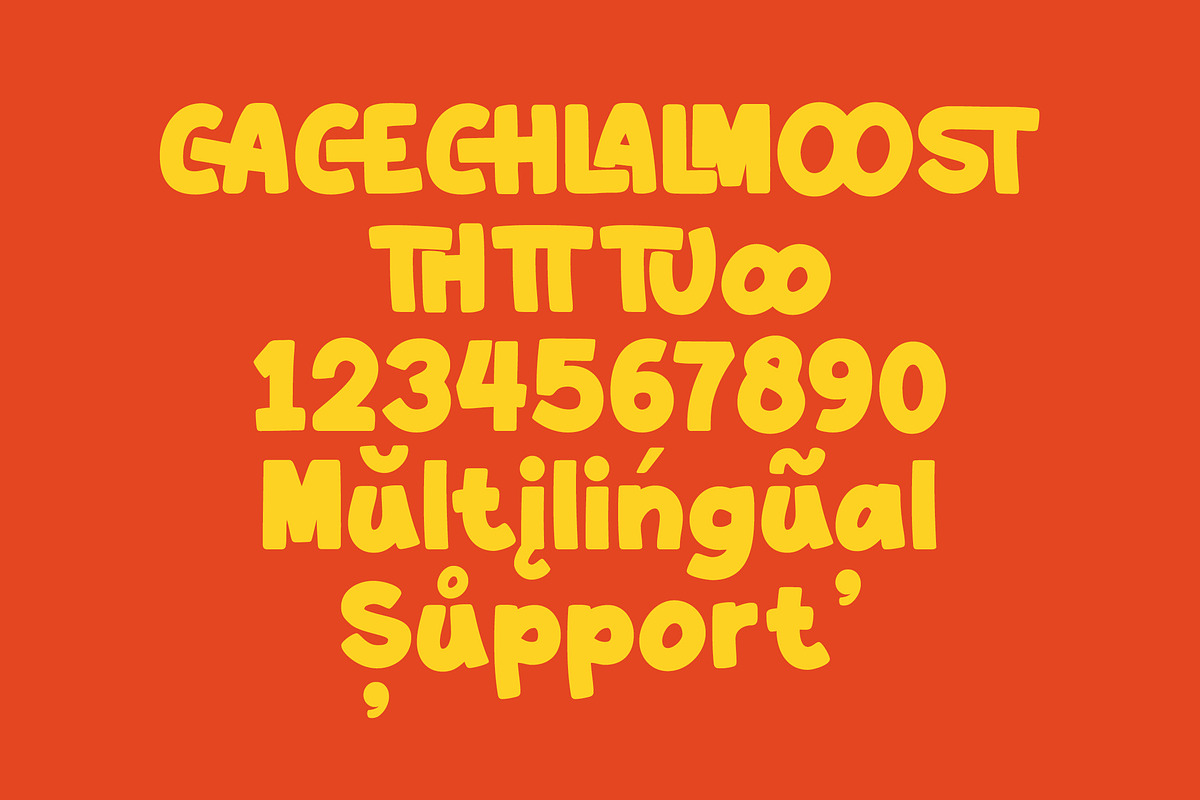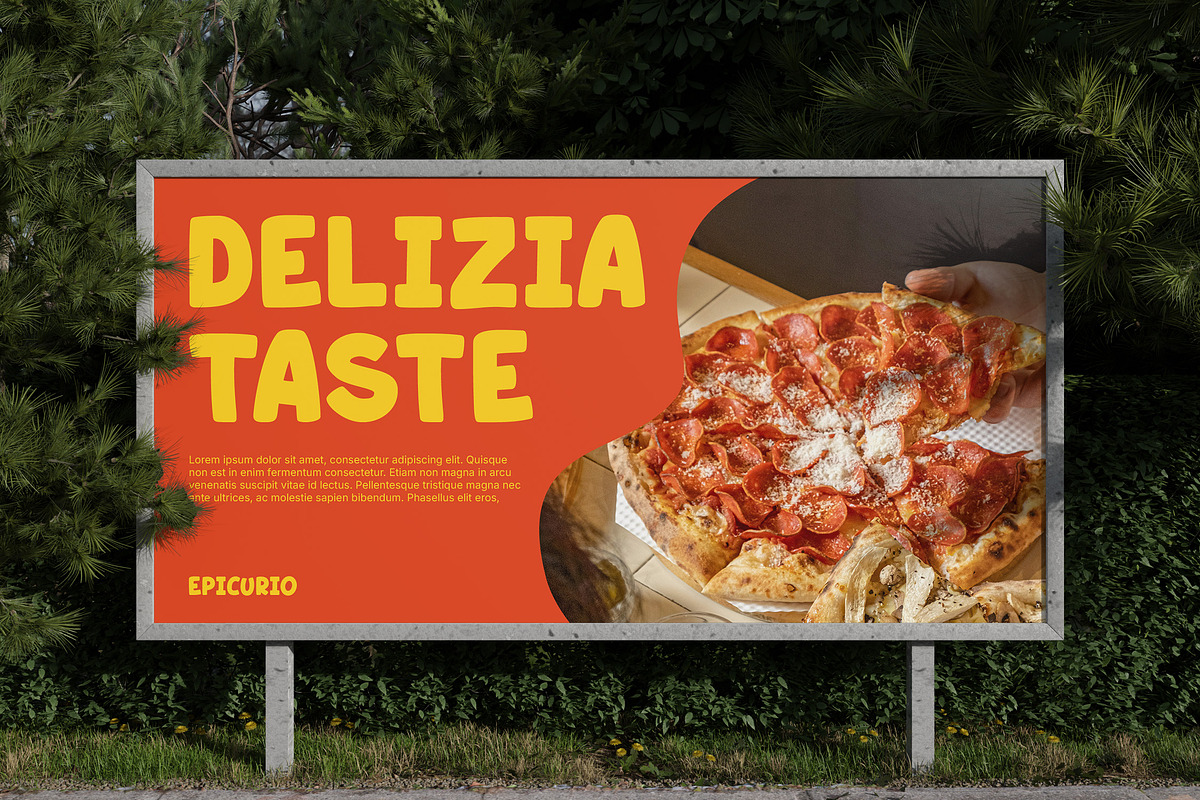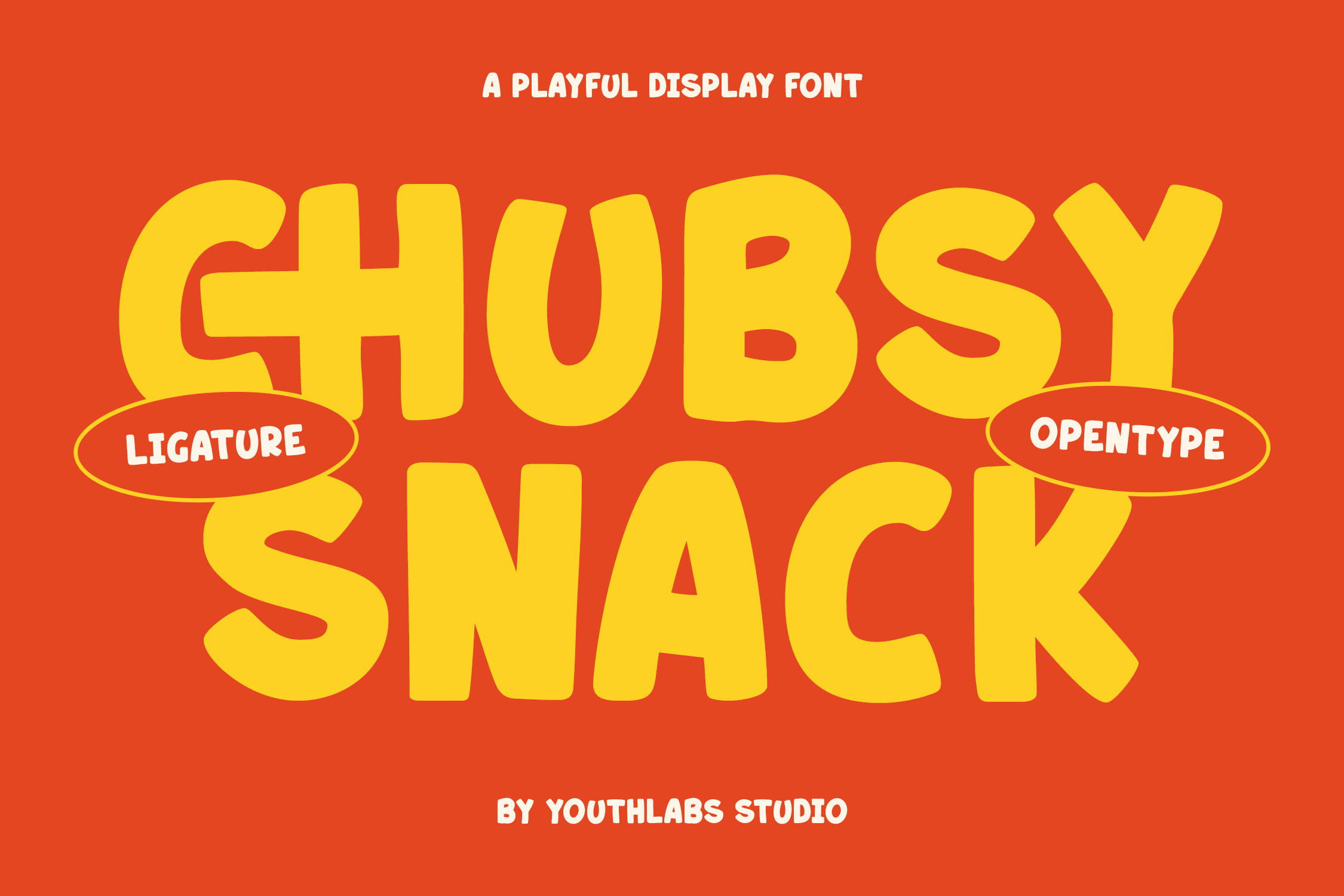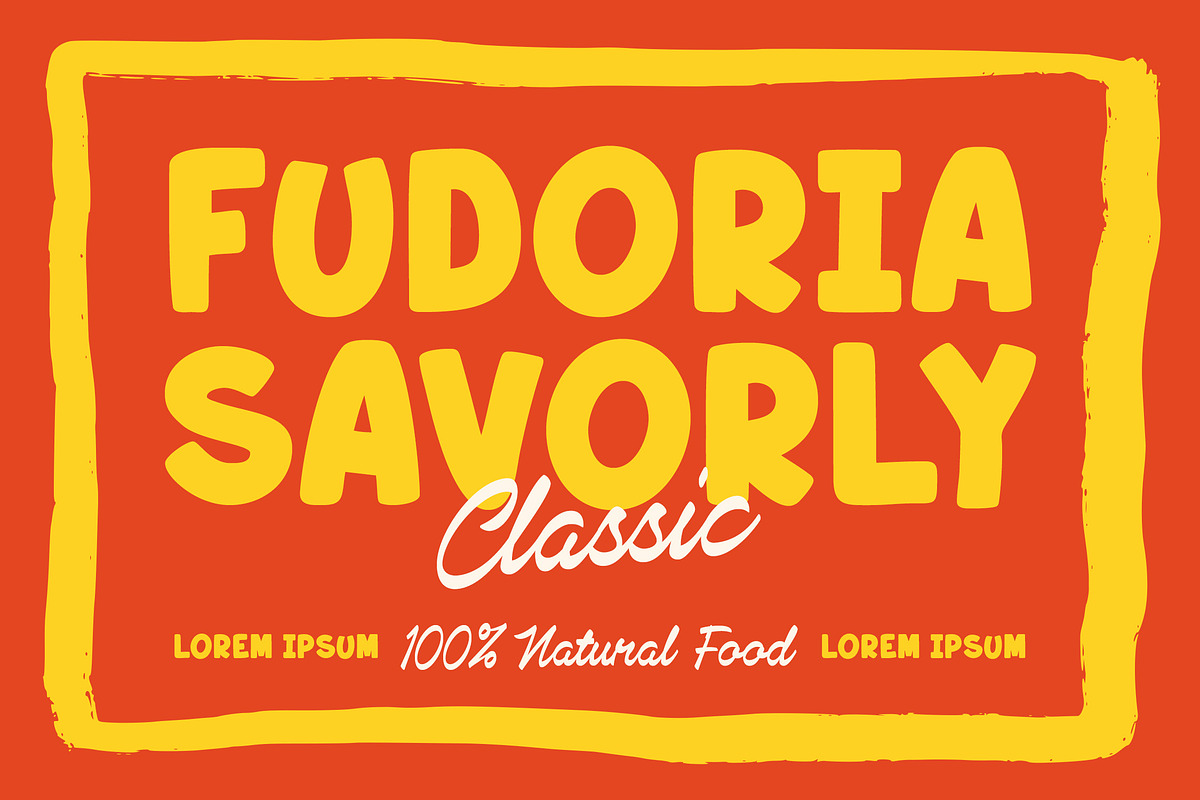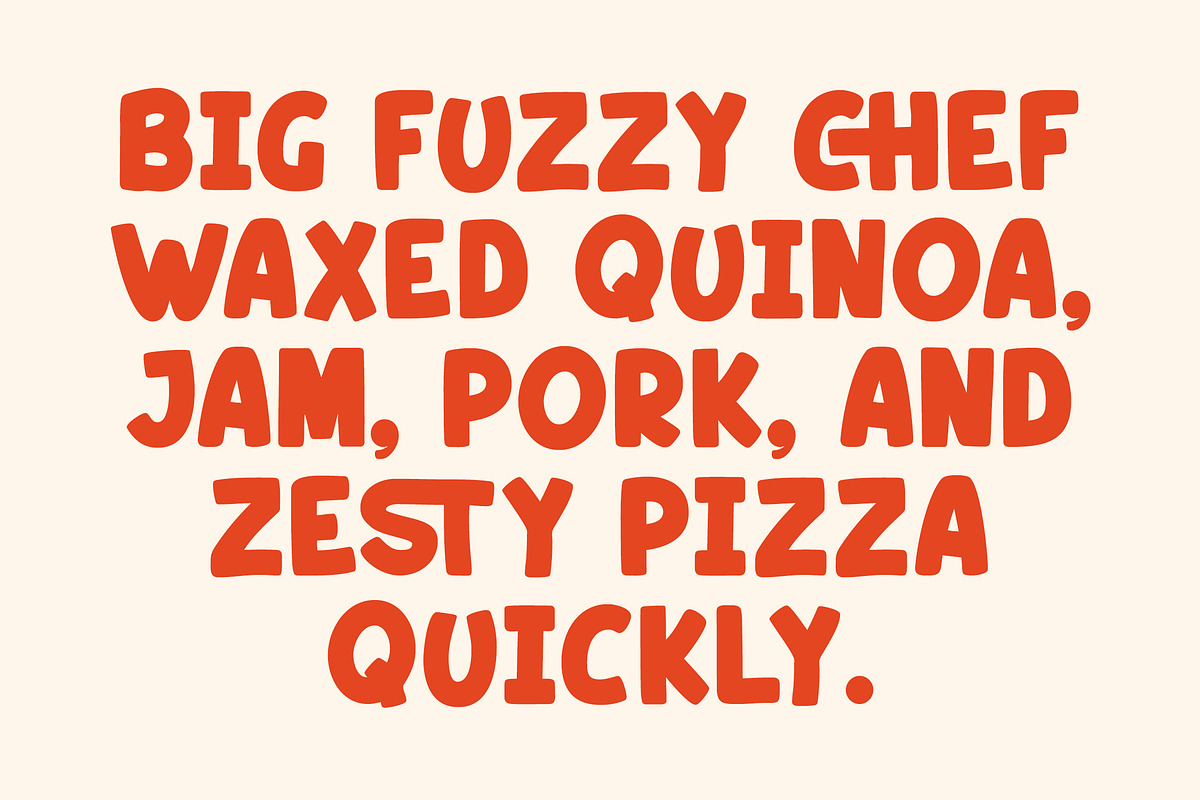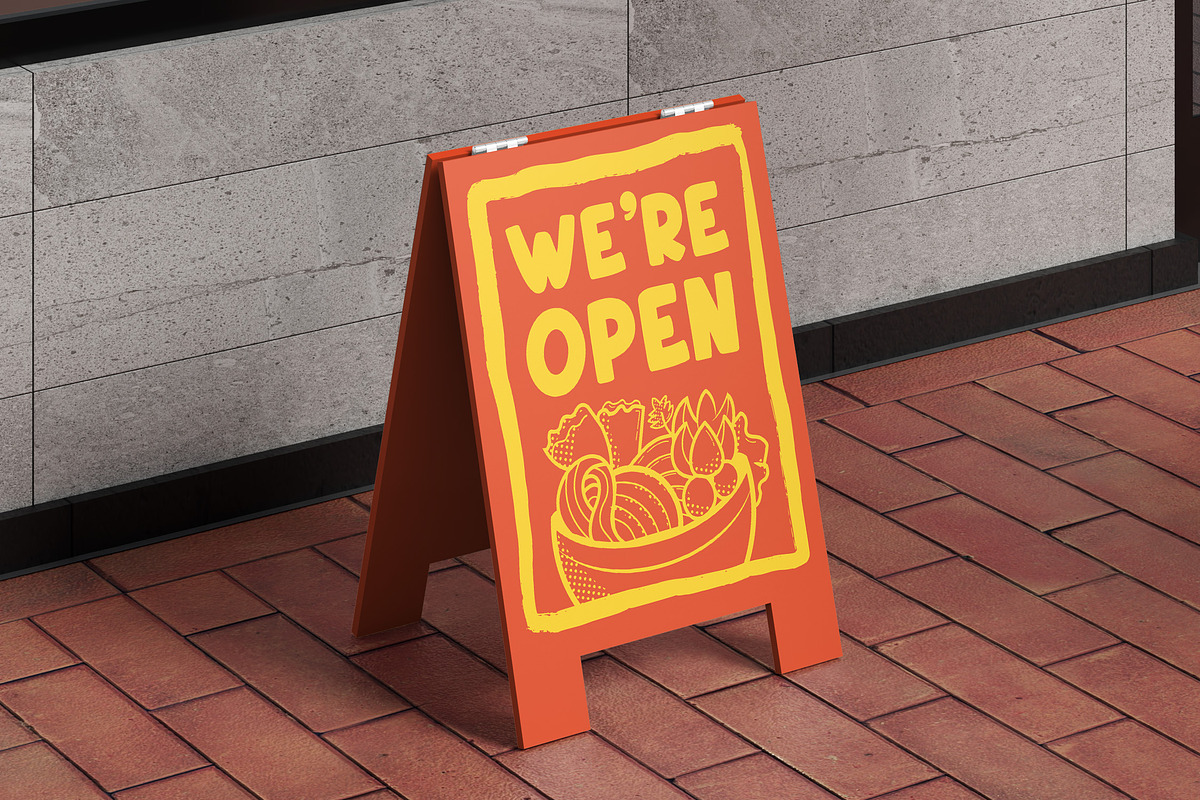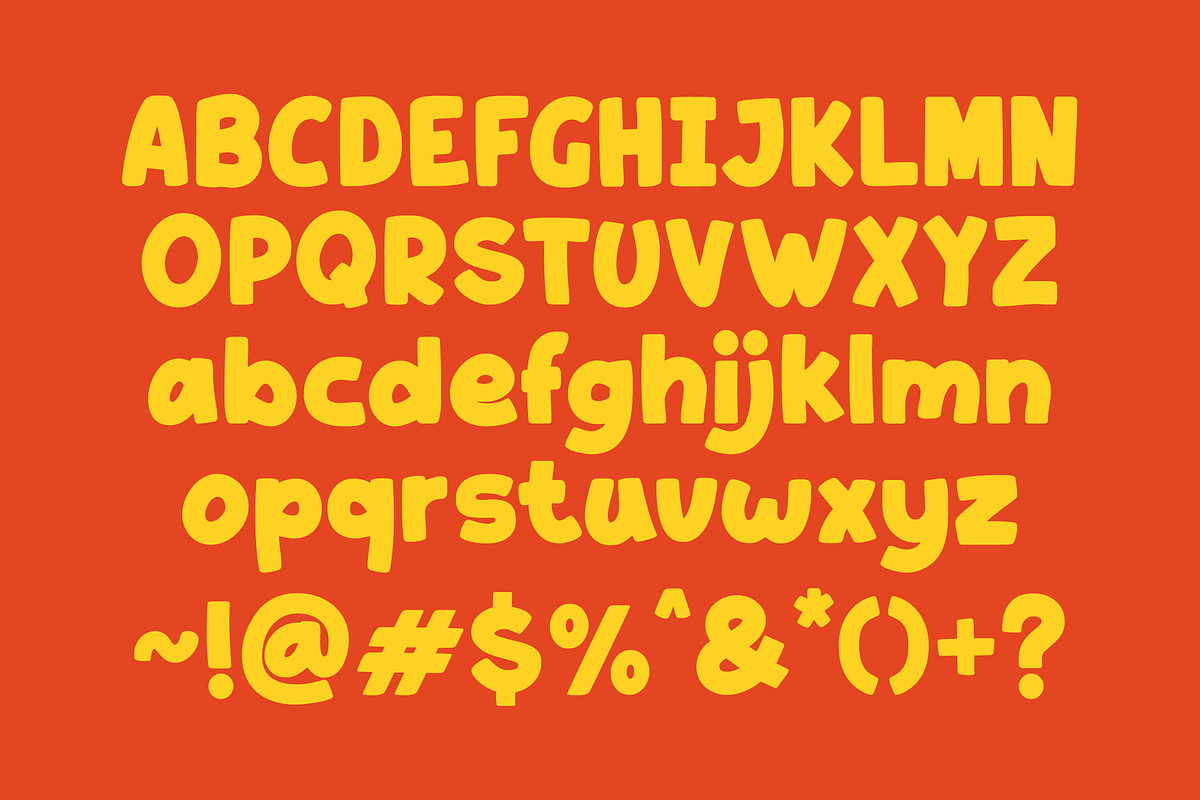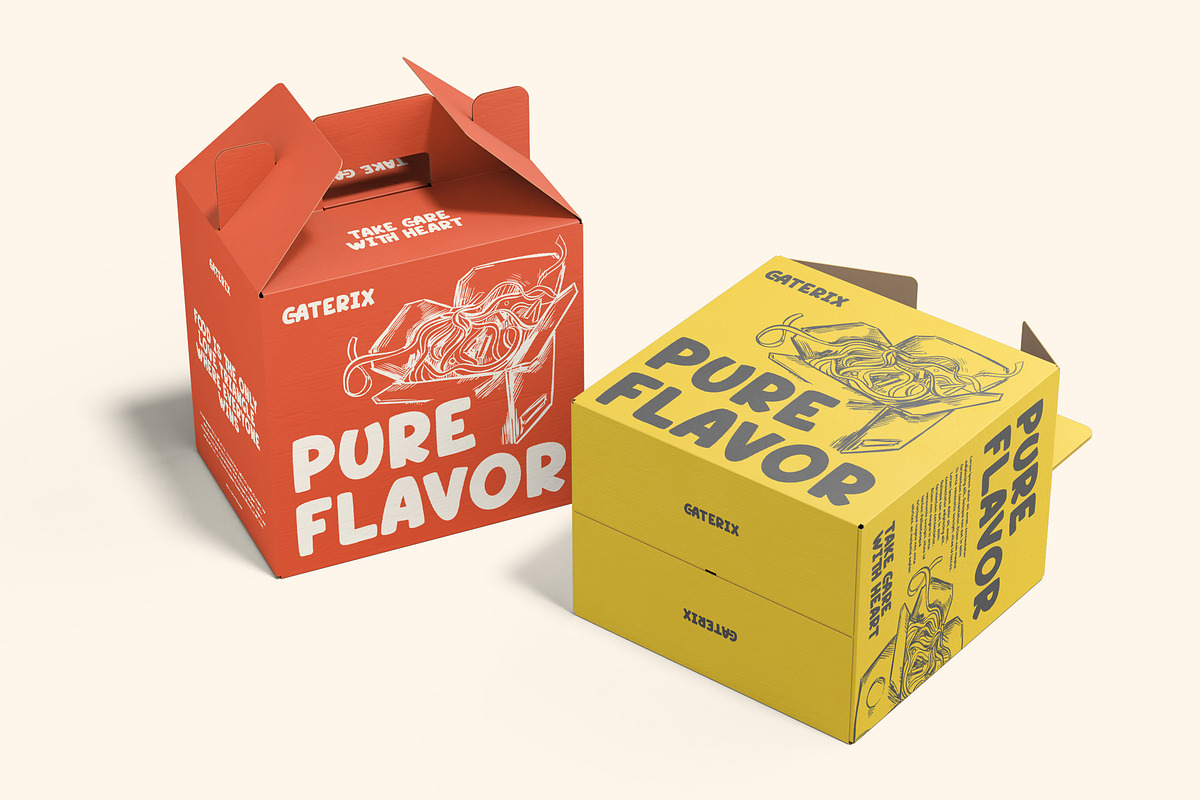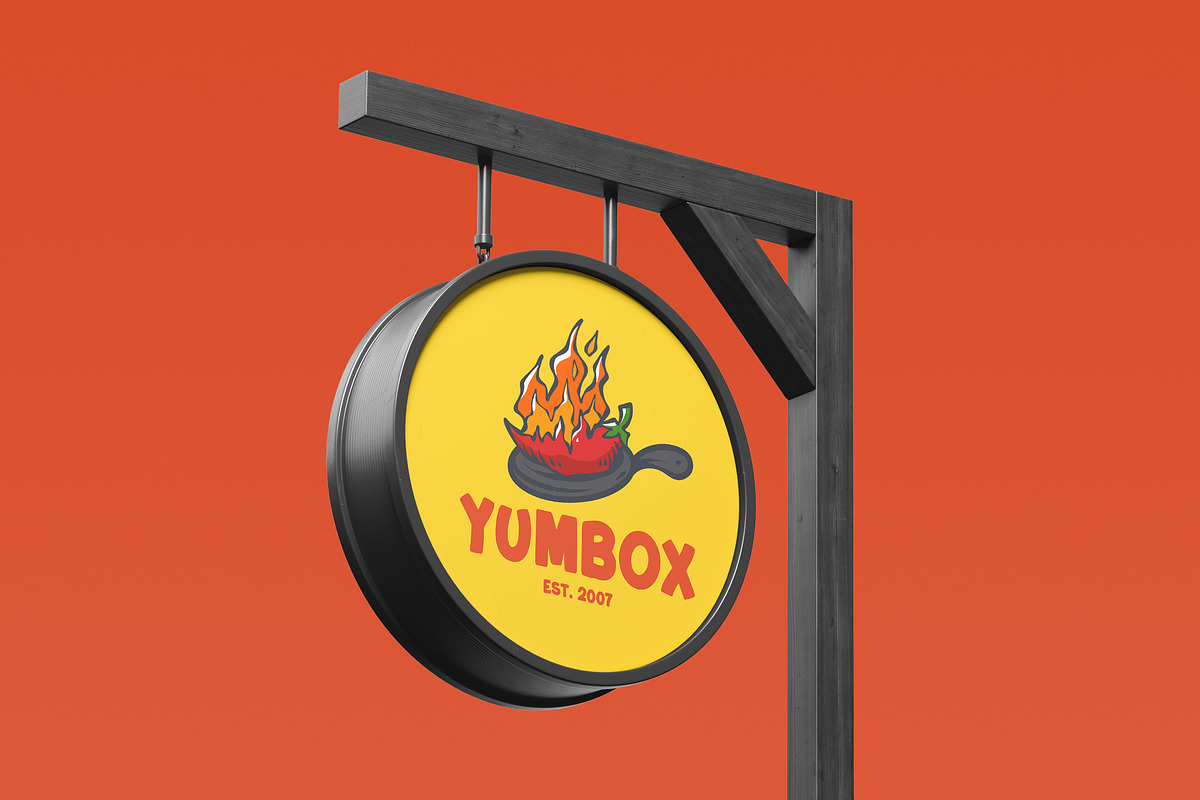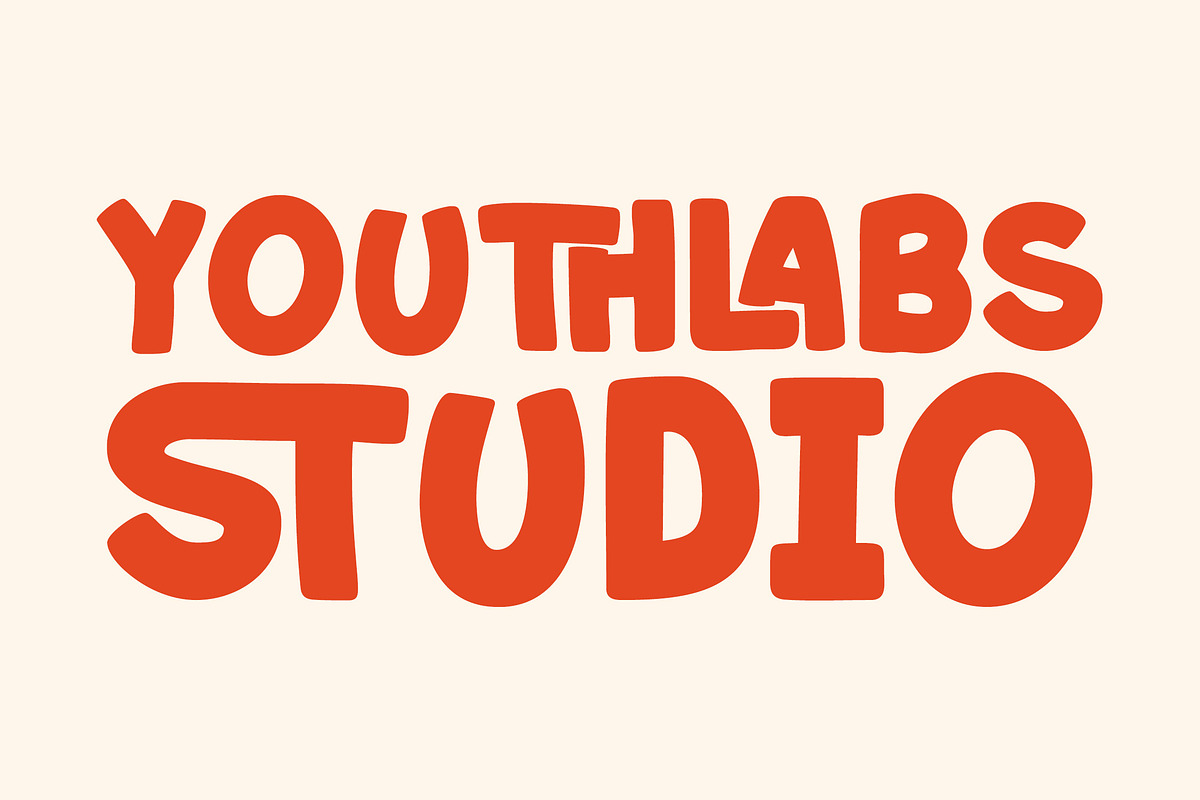
Chubsy Snack – Playful Display Font
Chubsy Snack is a playful display font with chunky shapes, rounded curves, and a cheerful personality. Designed to feel bold, fun, and deliciously expressive, this font is perfect for food branding, snack packaging, kids projects, posters, menus, logos, and joyful headlines. With OpenType features and cute ligatures, Chubsy Snack brings a friendly, tasty vibe that instantly grabs attention and makes designs feel warm and approachable.
✨ Key Features
- Playful chunky display style
- Bold rounded letterforms
- Fun and friendly personality
- OpenType features included
- Unique ligatures support
- Strong readability at large sizes
- Perfect for food & snack branding
- Ideal for kids and playful designs
- Eye-catching headline font